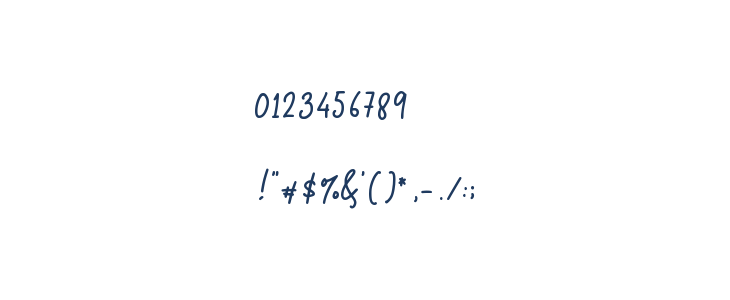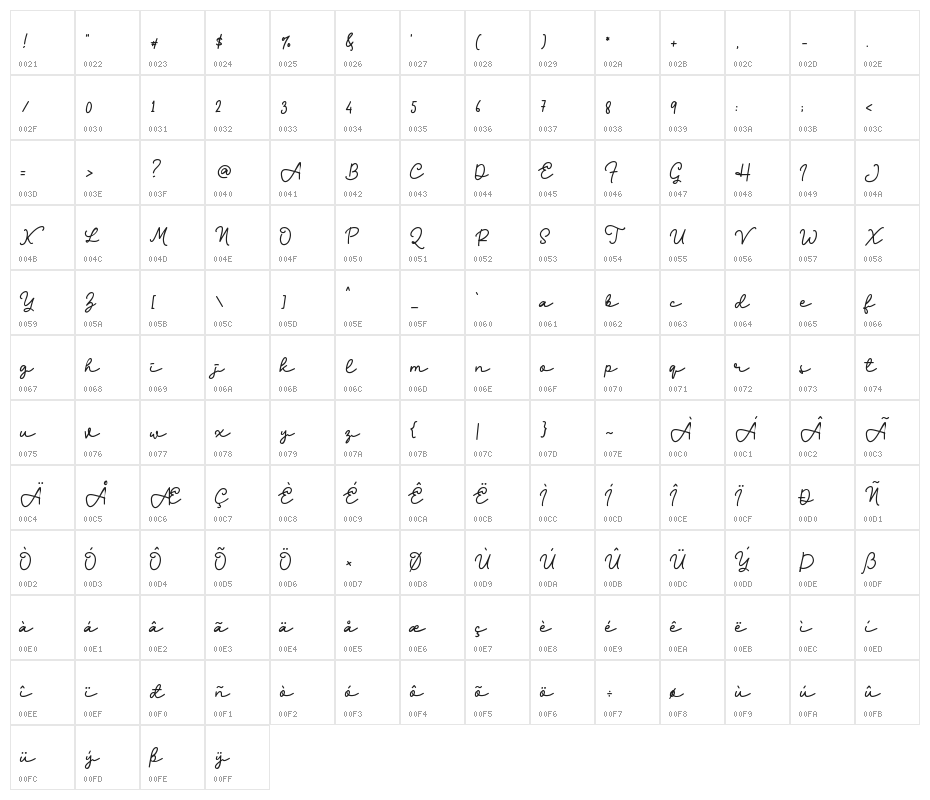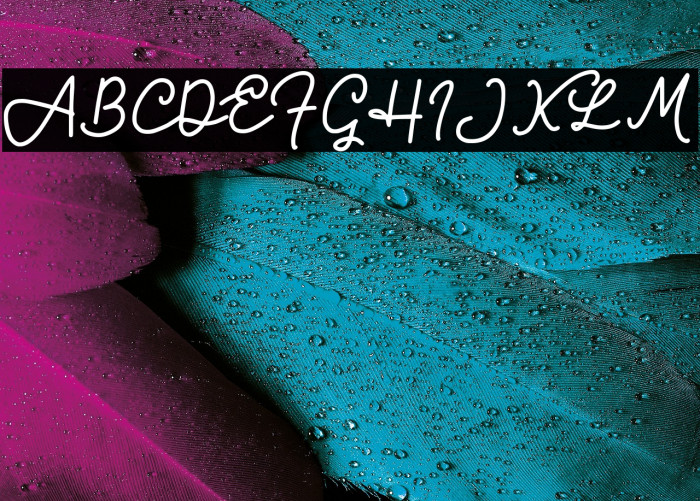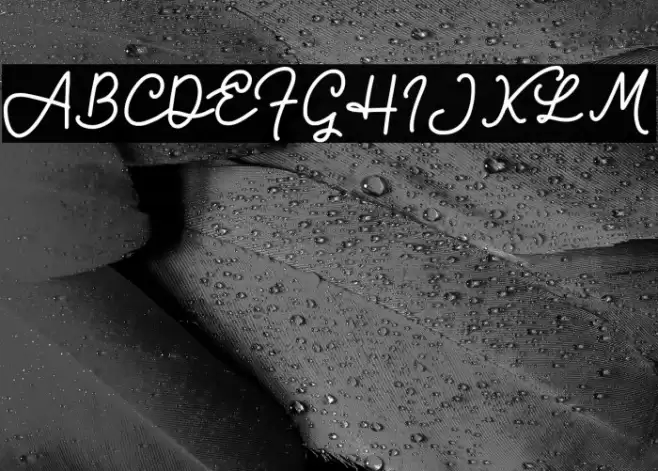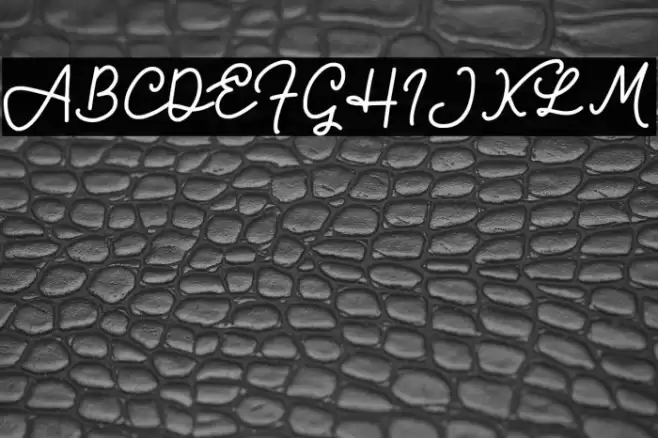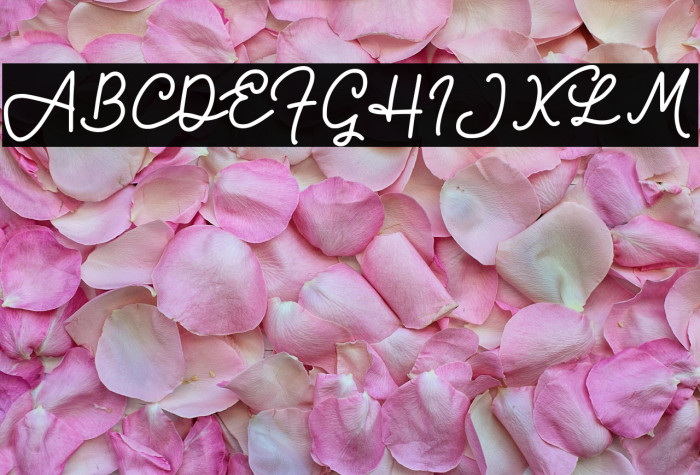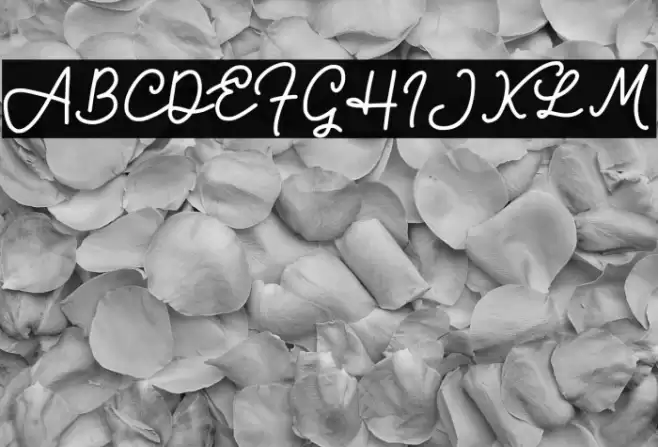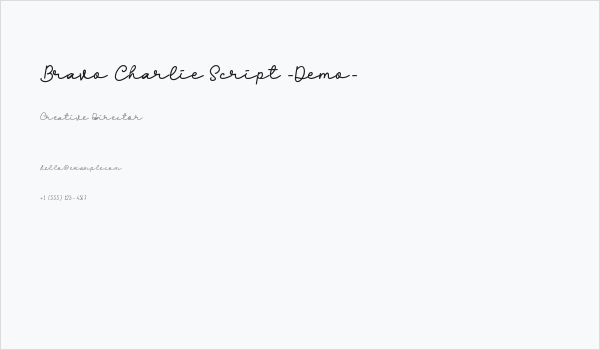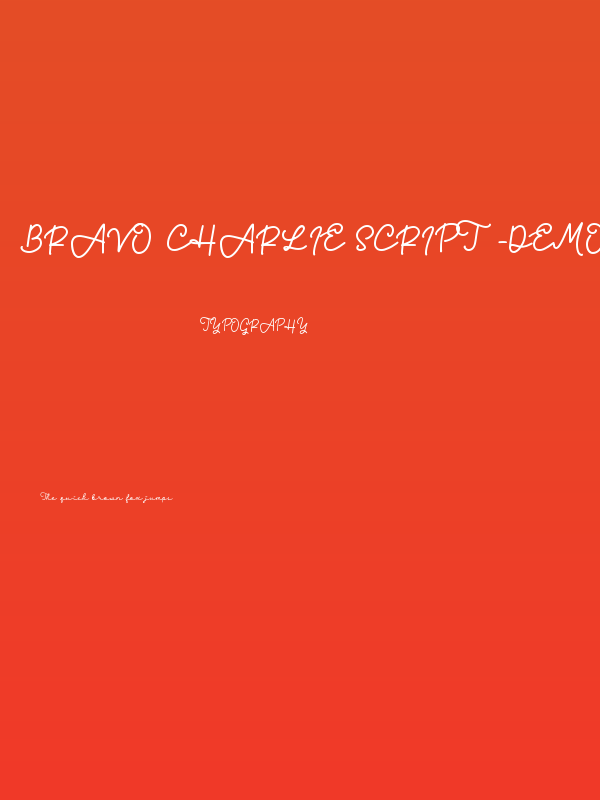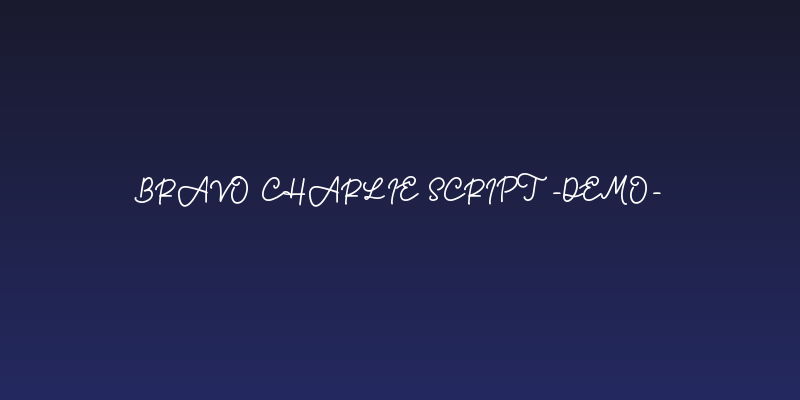
Bravo Charlie Script -Demo- Font
Bravo Charlie Script -Demo- Description
This font features a flowing, cursive style that mimics natural handwriting, giving it a personal and elegant touch. The uppercase letters are slightly more formal with graceful loops and curves, while the lowercase letters maintain a consistent, smooth flow that enhances readability. The numerals and special characters are designed to complement the script style, maintaining the same fluidity and charm. This font is perfect for projects that require a personal, handwritten feel, such as invitations, greeting cards, or branding materials. Its balanced weight and moderate contrast make it versatile for various design needs.
| Use Case | Headlines, Invitations, Greeting Cards |
| Proposed Projects | Ideal for invitations, greeting cards, branding materials, and any project needing a personal, handwritten feel. |